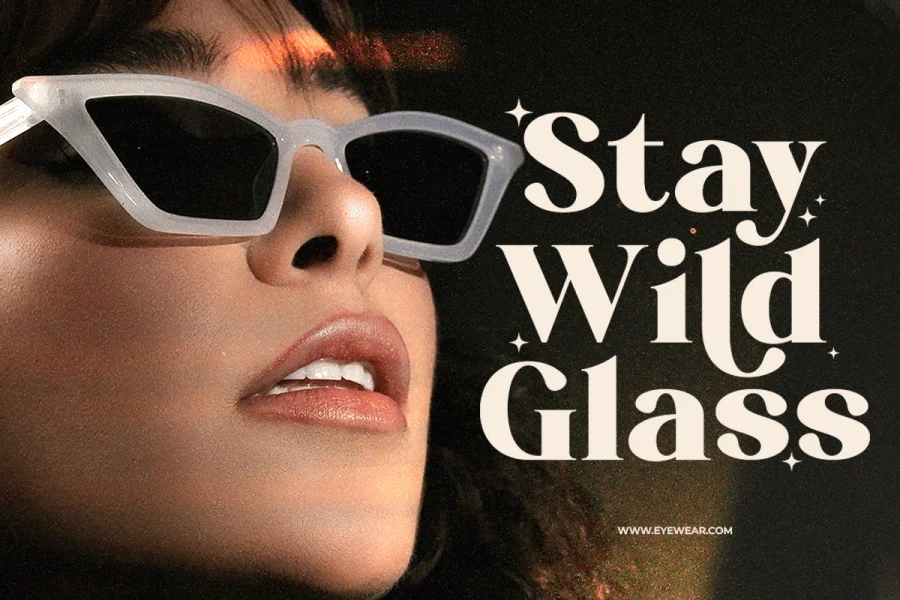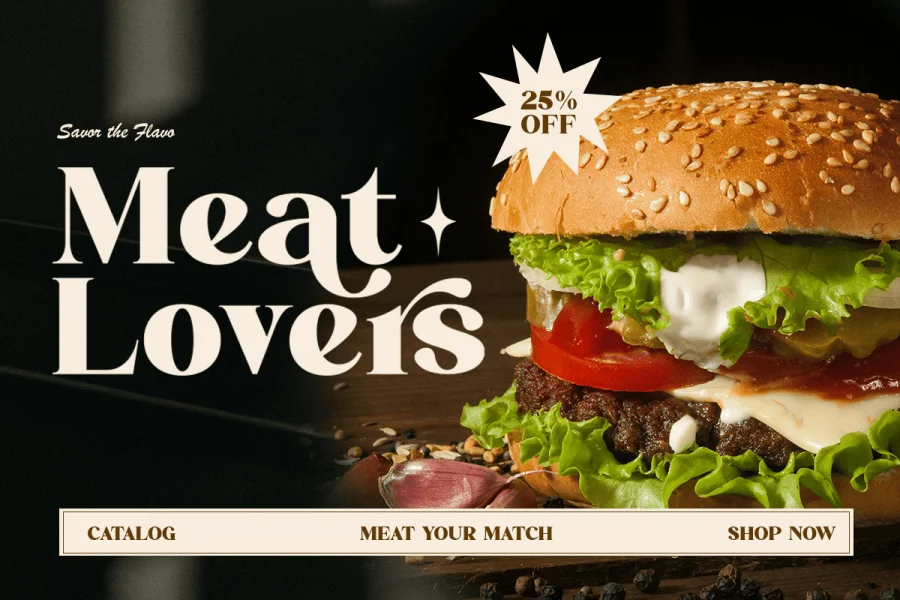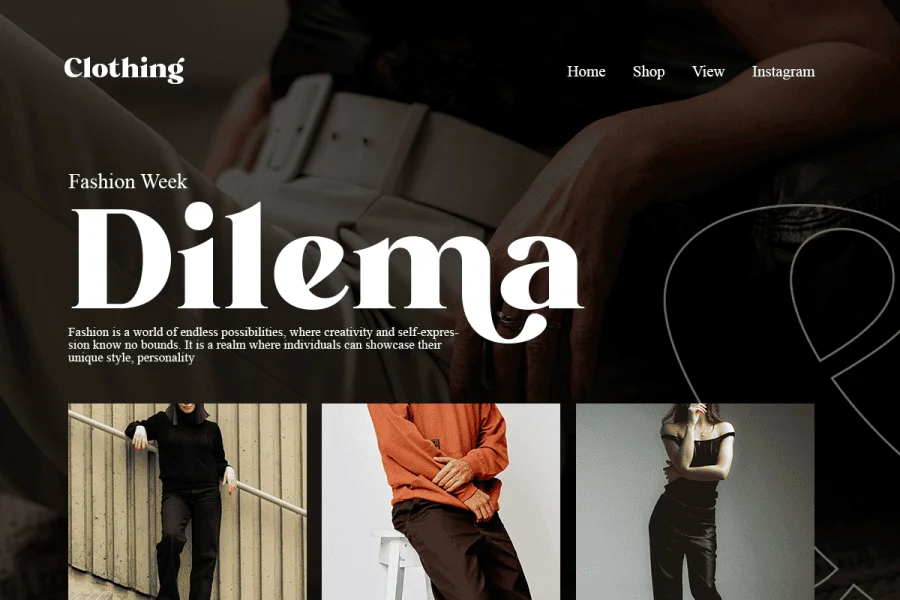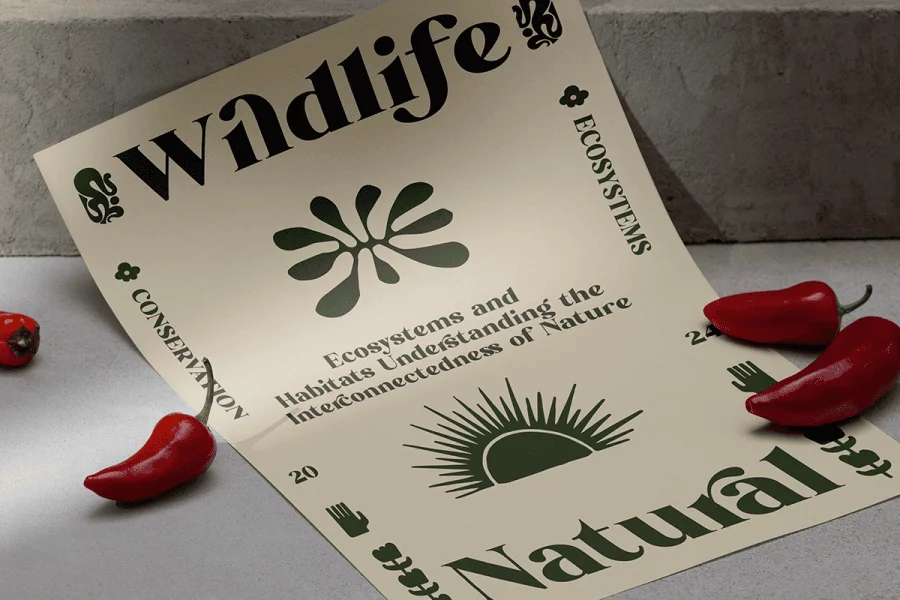
Introducing the Grained Display Serif Font! Designed to elevate your creative projects with a touch of sophistication, Grained combines timeless elegance with modern sensibility. Its distinctive alternates and seamless ligatures ensure that each letter flows seamlessly into the next, creating a harmonious visual experience. Whether you're aiming for a refined logo, eye-catching poster, or a polished website interface, Grained offers versatility that meets every design challenge with grace.
Embrace the essence of Grained's aesthetic and unlock the potential of your designs. From branding to editorial layouts, this font is crafted to stand out while maintaining readability and charm. Elevate your creative output with Grained today and transform your ideas into captivating visuals that leave a lasting impression.